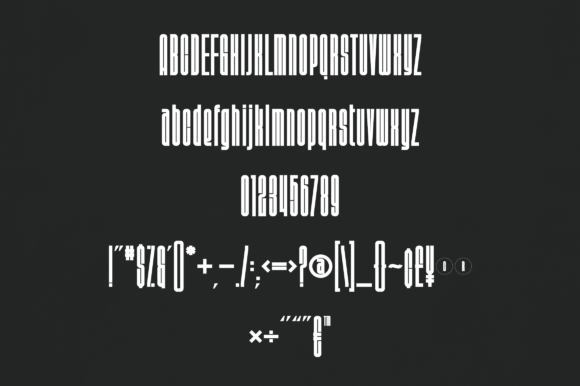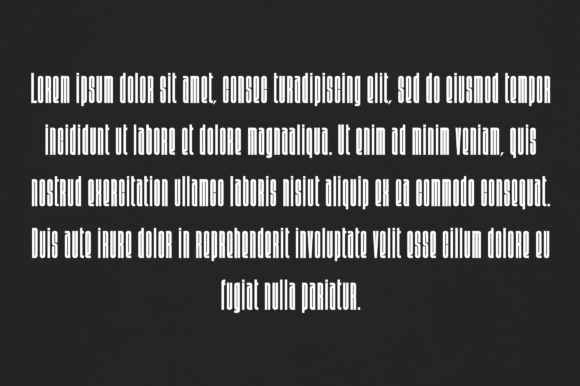
Introduction to Luciana Font
Imagine you’re brainstorming ideas for a new branding project, and suddenly, the perfect font pops into your mind. You envision it in bold, eye-catching headlines, or perhaps as a subtle yet elegant overlay on a stunning background image. This is exactly what the Luciana Font offers – a unique and versatile display font that will elevate your creative projects to the next level.
As designers, we’re always on the lookout for high-quality design resources that can help us stand out in a crowded market. The Luciana Font is a valuable addition to any design library, providing a stylish and sophisticated touch to any project. With its elegant and refined feel, this font is perfect for branding projects, home-ware designs, product packaging, and magazine headers.
Key Features of Luciana Font
- High-quality design resource suitable for various creative projects, including graphics, logos, and typography.
- Designed with a unique and elegant style, making it perfect for projects that require a touch of sophistication and creativity.
- Includes a wide range of characters and glyphs, including Latin and Cyrillic alphabets, making it a versatile design resource.
Honest Review: Luciana Font
I recently stumbled upon Luciana Font, and I must say, it’s been a great addition to my design resource library. This high-quality font is perfect for any creative project that requires a touch of elegance and sophistication.
- ✨ High-quality design: Luciana Font is incredibly well-designed, with crisp lines and a clear, readable text.
- ✨ Transparent background: The transparent background option allows for seamless integration with any design, making it a great choice for designers.
While Luciana Font is an excellent choice for most design projects, I did encounter a few limitations:
- ⚠️ Limited font styles: Compared to other high-quality fonts, Luciana Font has a relatively limited range of font styles.
- ⚠️ Not ideal for bold typography: While the font looks great for smaller text, it may not be the best choice for bold, eye-catching typography.
Overall, I’m thoroughly impressed with Luciana Font. It’s a solid addition to any design library, and its transparent background and high-quality design make it a versatile choice for a wide range of creative projects.
Luciana Font
Introduction to Luciana Font
Luciana Font is a high-quality design resource that can elevate your creative project to the next level. With a transparent background, this versatile font is perfect for designers looking for a sophisticated and elegant touch.
Tips for Getting the Most Out of Luciana Font
To get the most out of Luciana Font, experiment with different font sizes, colors, and combinations to create unique and eye-catching designs. You can also pair it with other fonts to create a harmonious and balanced look.
Common Use Cases for Luciana Font
Luciana Font is perfect for a wide range of creative projects, including branding, marketing materials, social media posts, and presentations. Its elegant and sophisticated design makes it ideal for use in luxury, fashion, and lifestyle industries.